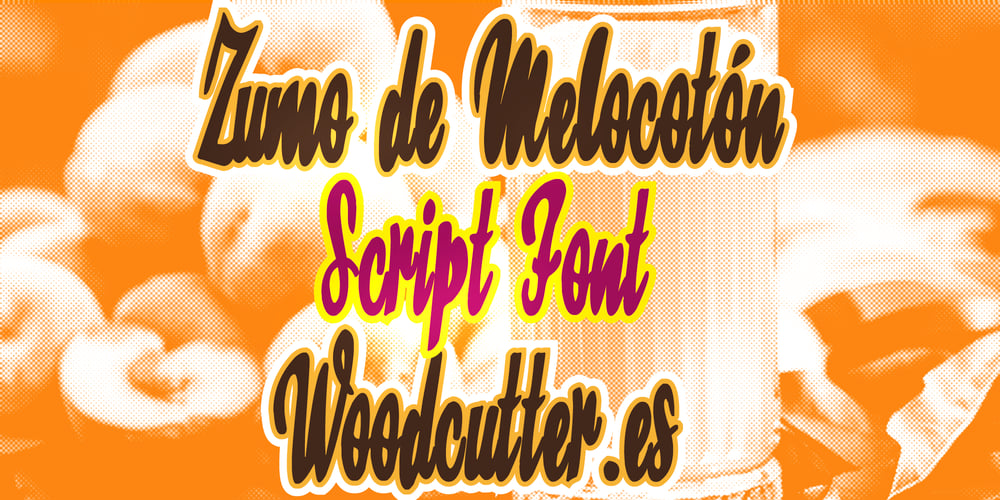
Zumo de Melocoton Font Family was designed by Jordi Manero and published by Woodcutter. Zumo de Melocoton contains 1 styles and family package options. “Zumo de Melocotón” is a font in uppercase and lowercase with accents, mimicking a handwritten calligraphic style that is condensed and natural. Its fluid and organic strokes create a fresh and authentic appearance, as if the letters were drawn freehand with a brush or pen. This font is perfect for projects that aim to convey a sense of closeness and spontaneity, such as invitations, greeting cards, or designs that need a personal and handcrafted touch.